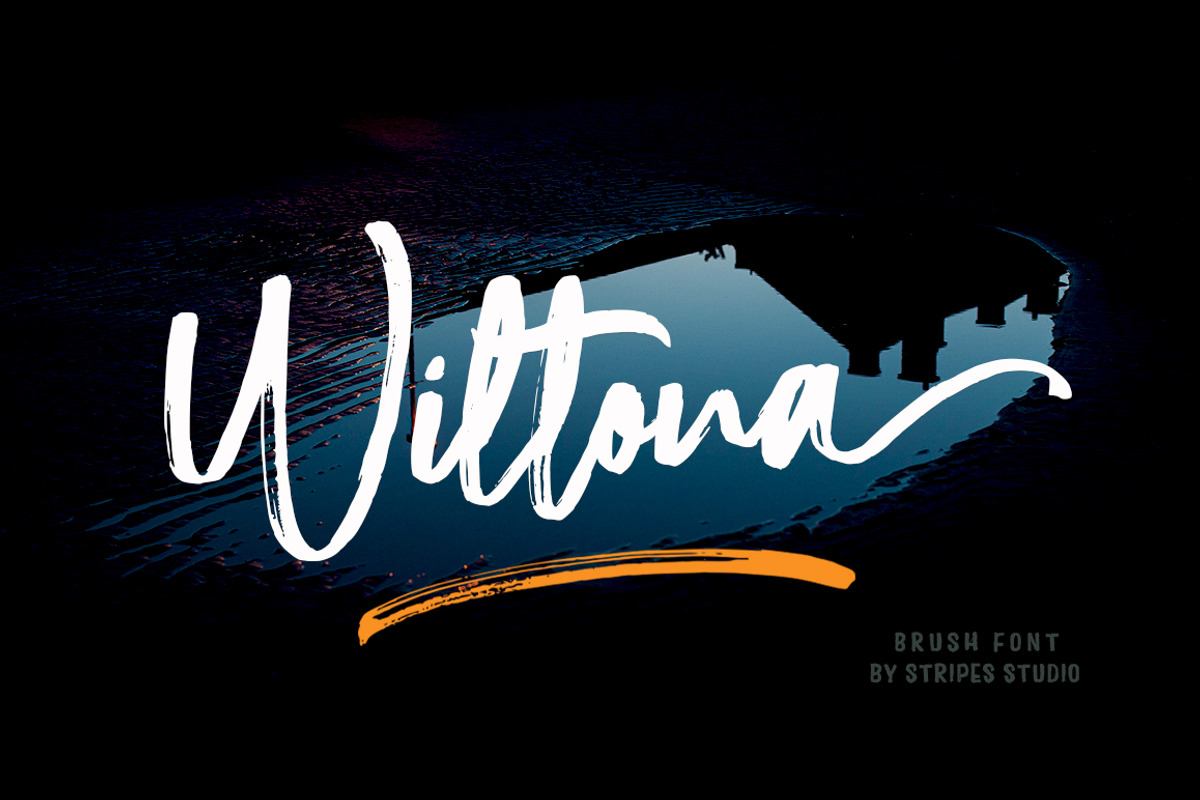
Wiltona Brush Font Free Download is a bold and expressive script typeface that captures the raw energy of hand-drawn brush strokes. With its textured edges, dynamic flow, and casual feel, this font is perfect for posters, logos, apparel, album covers, and social media graphics that need a strong, artistic personality.
Whether you're designing for a music brand, a streetwear label, or a creative campaign, Wiltona Brush Font Free Download adds attitude and authenticity to your typography. The natural brush style gives it a handcrafted look, making each design feel personal and powerful.